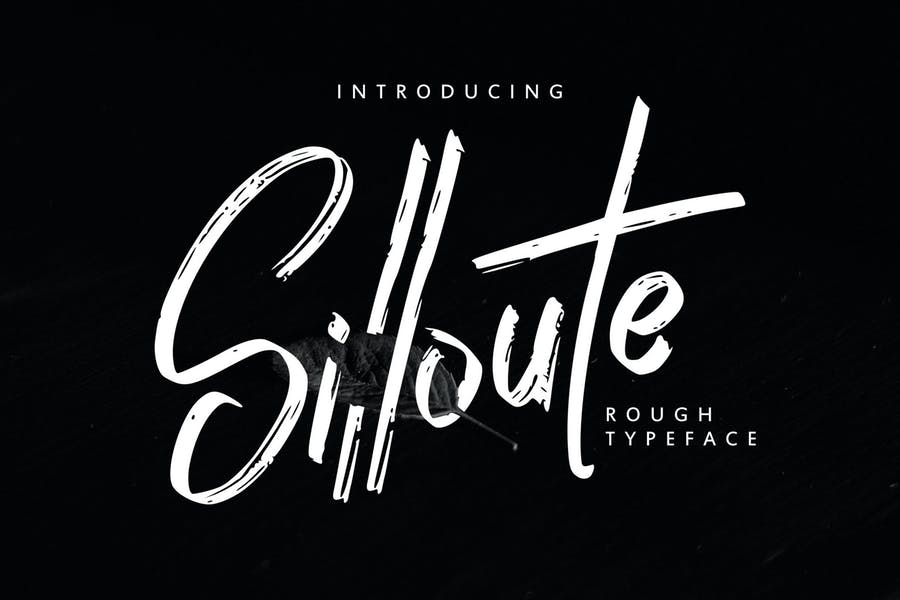
Silloute Font
Silloute Font is perfectly suited for artistic photography branding, shadow play theater posters, minimalist logo designs, contemporary art gallery materials, fashion silhouette marketing, architectural studio identities, abstract design projects, modern dance performances, and sophisticated visual arts campaigns.
What makes Silloute Font so exciting is its striking visual drama and elegant simplicity that creates powerful impact through the artful interplay of form and negative space in every carefully crafted letterform. This captivating typeface embodies the essence of shadow and light with its distinctive silhouette-inspired design that transforms text into compelling visual art. The font's dramatic contrast and sophisticated proportions create an immediate sense of mystery and artistic depth that resonates with audiences who appreciate the beauty of minimalist design and the power of suggestion over explicit detail. Silloute Font stands out through its ability to convey artistic sophistication, visual drama, and contemporary elegance, making it perfect for projects that need to establish creative authority while engaging audiences who value innovative design and artistic expression.
The Silloute Font family includes Light, Regular, Medium, and Bold weights, each maintaining the font's distinctive silhouette character while providing design flexibility for various artistic applications. The family also features shadow variations and contrast alternates that enhance the font's dramatic appeal and provide comprehensive solutions for sophisticated visual design projects.
The technical excellence of Silloute Font includes a comprehensive character set with uppercase and lowercase letters, numerals, punctuation marks, and artistic symbols that maintain the font's dramatic silhouette character. The font has been meticulously engineered to ensure optimal contrast and visual impact across both digital and print applications while preserving the sophisticated details that give it its distinctive artistic character and contemporary appeal.
Whether you're designing creative agency identities, developing artistic marketing materials, creating contemporary art projects, or crafting designs that require visual drama and artistic sophistication, Silloute Font delivers the perfect combination of artistic innovation and professional reliability that makes your projects visually compelling and memorable for audiences seeking cutting-edge design and creative excellence.